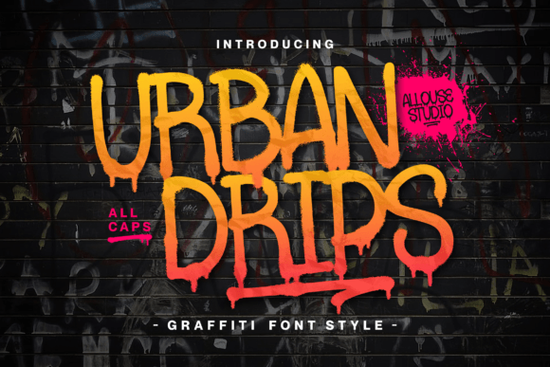
If you’ve been searching for a display font that brings bold, street-style energy to your projects without feeling overdone, Urbandrips Font might be exactly what you’re missing. It’s built with graffiti-inspired letterforms sharp, expressive, and full of character making it ideal for everything from product packaging to social media graphics. Whether you’re designing merch for a local event or adding punch to a wedding invite with an urban twist, this font adapts surprisingly well.
What sets Urbandrips apart is how readable it stays, even at smaller sizes. Many graffiti fonts sacrifice legibility for style, but this one keeps its edge while remaining functional. That’s why small business owners and print-on-demand sellers keep coming back to it especially when they need something that stands out on a t-shirt, sticker, or tote bag without confusing the viewer.
Who actually uses fonts like this in real projects?
You’d be surprised how many creatives lean into fonts like Urbandrips for commercial work. Think:
- Print-on-demand sellers creating limited-run apparel with attitude
- Event planners designing posters or flyers for music festivals, skate events, or pop-up markets
- Crafters personalizing tumblers, mugs, or wood signs with custom quotes
- Branding designers working with clients who want to feel young, energetic, or rebellious (without going full punk)
It also pairs nicely with cleaner sans-serifs if you’re layering type try combining it with something like Elementary Type for contrast. Or if you’re going for a more athletic vibe, check how it stacks up next to Varsity Football Team.
Will it work for weddings? Really?
Yes but not the traditional kind. If you’re planning a rooftop vow renewal, a downtown elopement, or a reception with spray-paint art stations and hip-hop playlists, Urbandrips adds personality without clashing. Use it for names, hashtags, or signage titles. Just avoid body text save that for something simpler like Yorks, which has a softer, hand-lettered charm.
One tip: adjust tracking slightly if you’re using all caps. The default spacing works great for headlines, but tightening it up just a bit can make longer phrases feel more cohesive.
How does it compare to other graffiti-style fonts?
There are dozens of “urban” fonts out there, but many feel either too cartoonish or too rigid. Urbandrips strikes a balance it’s stylized but not gimmicky, rough but not messy. If you’ve tried fonts like Varsity Football Team Font or Awesome Newbie Font and found them either too sporty or too sweet, this one sits right in the middle with authentic street credibility.
And unlike some display fonts that only include uppercase letters, Urbandrips gives you full lowercase, numerals, punctuation, and even alternates for certain characters handy if you’re trying to avoid repetition in logos or headlines.